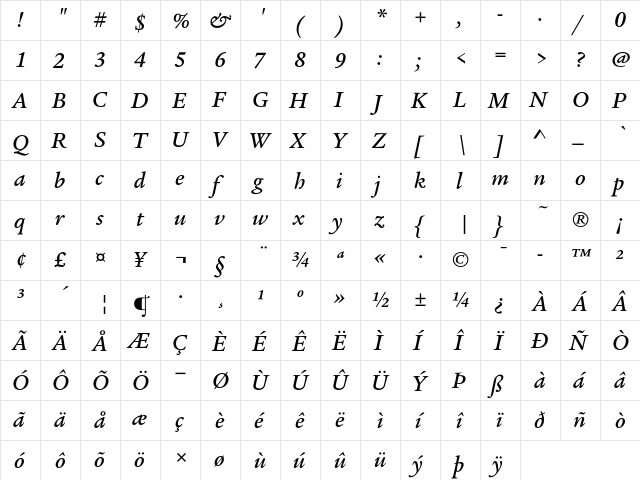
Legacy Serif ITC Medium Italic
Design Context for Legacy Serif ITC Typeface
Legacy Serif ITC brings classic typographic sensibility to the table — its serifs and measured letterforms reflect centuries of print heritage. The dynamic lean of this cut emphasises speed and emphasis in any layout.
Pro Tip: Set Legacy Serif ITC with slightly loose tracking in headlines to let each letterform's detail read clearly at display sizes.